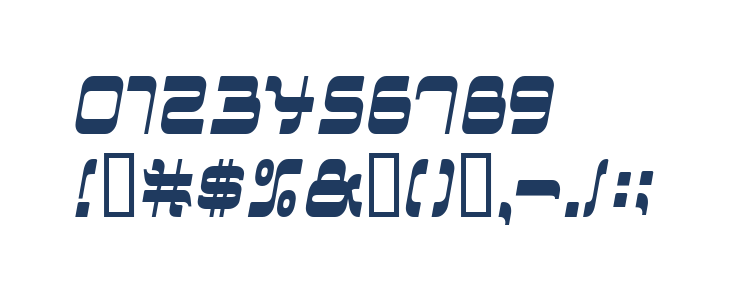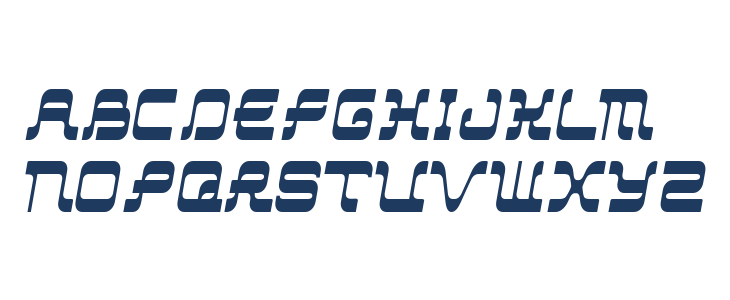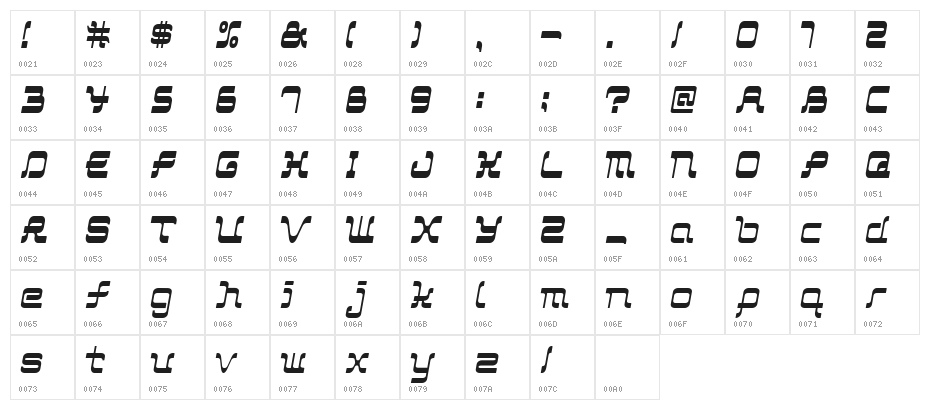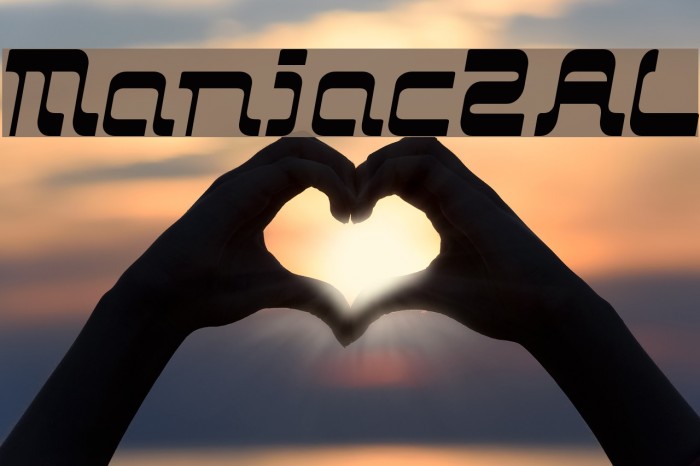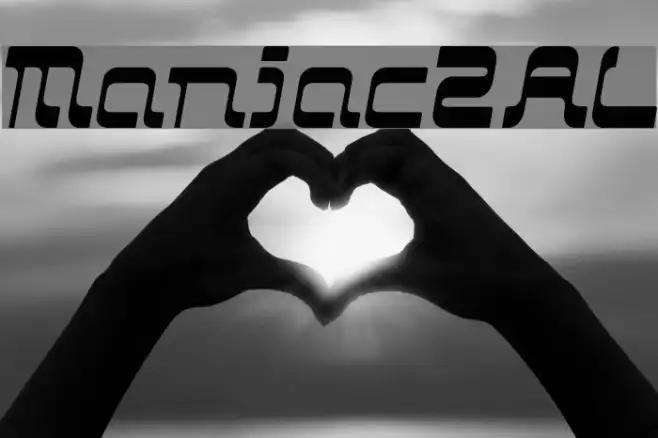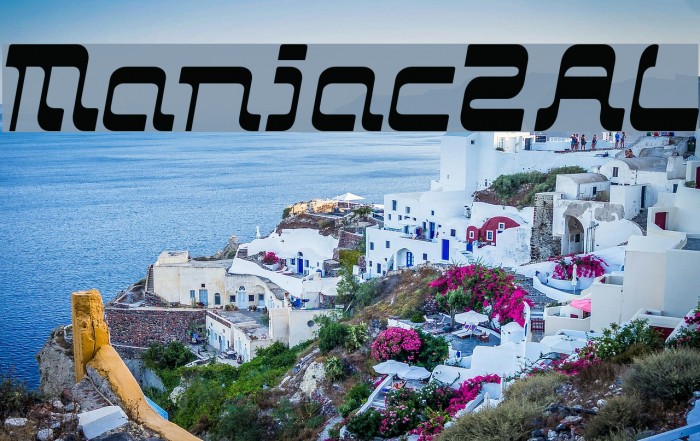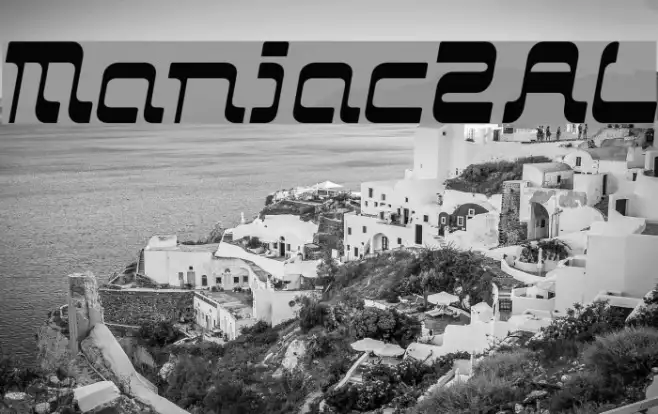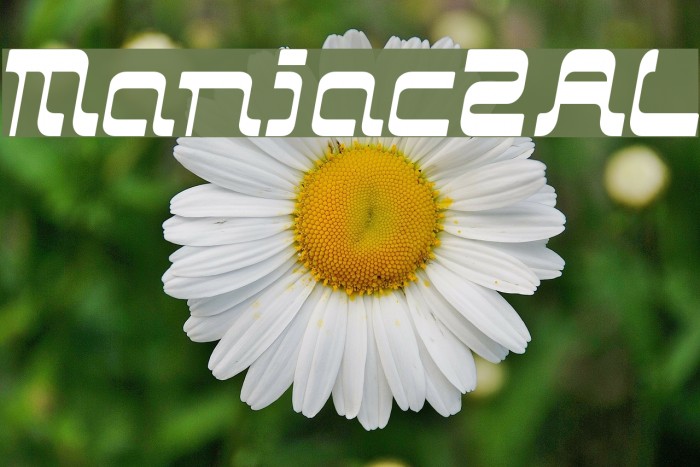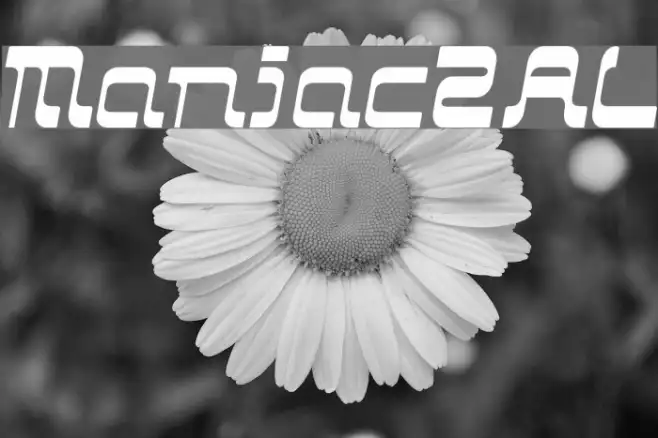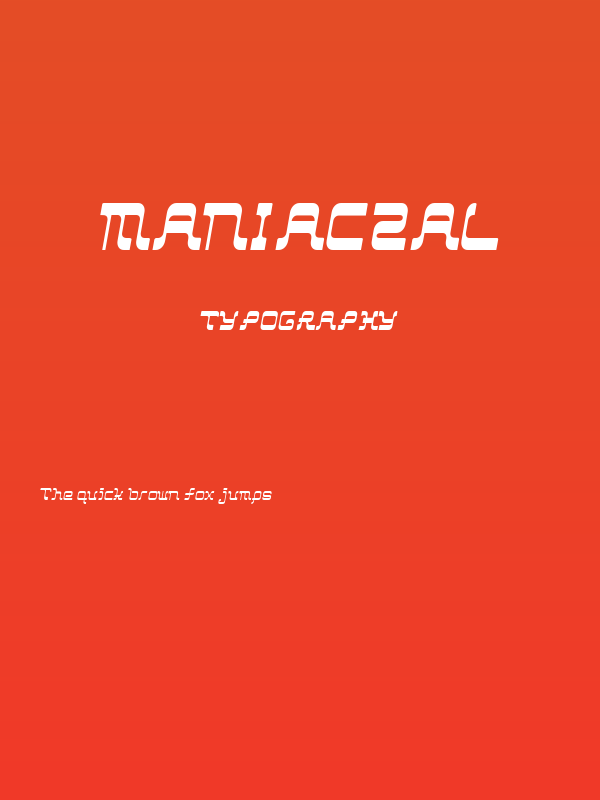
Maniac2AL Font
Maniac2AL Description
This font features a futuristic and dynamic design with a distinct slant, giving it a sense of motion and speed. The characters are bold and have a unique geometric structure, combining sharp angles with smooth curves. The uppercase and lowercase letters maintain a consistent style, while the numerals and special characters complement the overall aesthetic. The font's design is reminiscent of digital displays or sci-fi themes, making it suitable for projects that require a modern and edgy look.
Proposed ProjectsIdeal for sci-fi themed posters, video game titles, technology branding, and digital interfaces.